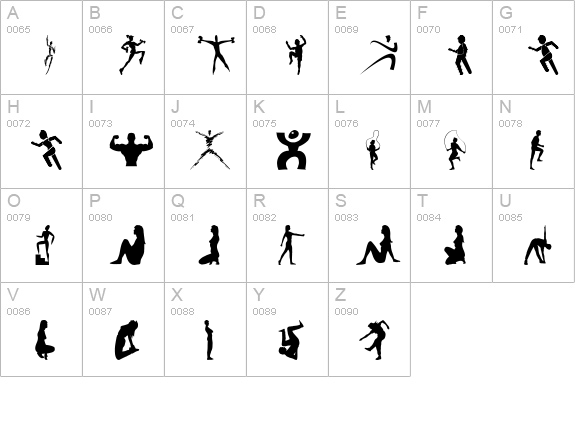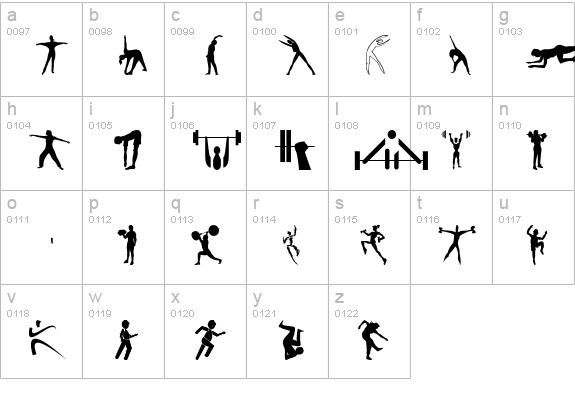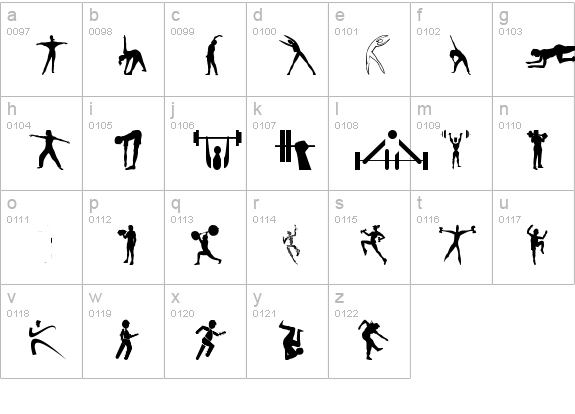
FitnessSilhouettes Font Details
Introducing FitnessSilhouettes font - a dynamic and energetic typeface that captures the essence of movement and strength. This bold and sleek font is perfect for fitness-related projects, sports branding, or any design that aims to convey power and vitality. With its striking silhouettes and modern design, FitnessSilhouettes font is sure to make your text stand out and grab attention. Whether you're creating posters, banners, or social media graphics, this font will add a touch of athleticism and vigor to your work. Best of all, FitnessSilhouettes font is completely free to download at FontsMarket.com. So go ahead and elevate your designs with this powerful and versatile typeface today!